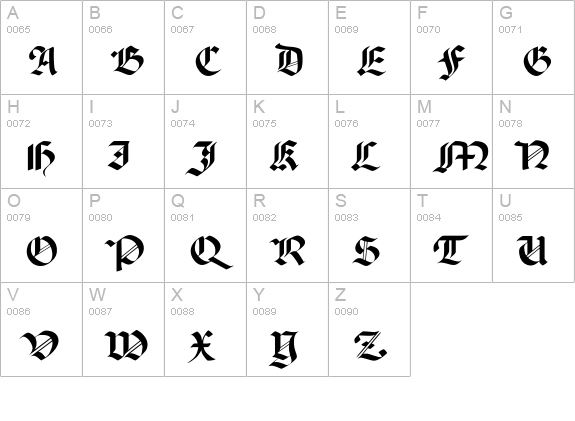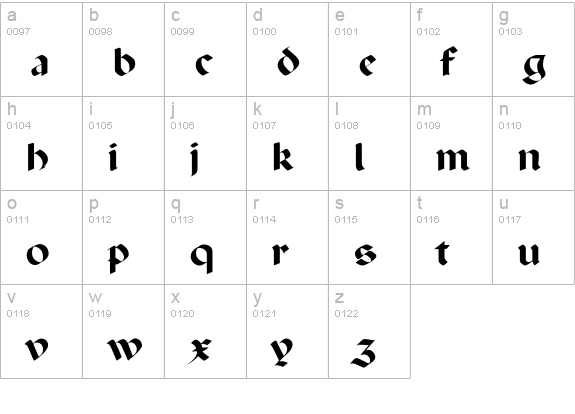
Paladin Font Details
Introducing Paladin, a captivating and versatile font that embodies strength, elegance, and a touch of medieval charm. Crafted with meticulous attention to detail, Paladin is designed to make a bold statement in any project. Its clean lines and balanced proportions create a harmonious blend of classic and contemporary aesthetics. With its carefully crafted letterforms, Paladin exudes a sense of reliability and integrity, making it the perfect choice for any professional or creative endeavor. Whether you're designing a logo, crafting a poster, or creating a stunning website, Paladin will elevate your work to new heights. But what sets Paladin apart is not just its exceptional design, but also its accessibility. We believe that great design should be available to all, which is why Paladin is freely available to download at FontsMarket.com. Now, you can unleash your creativity without any barriers, and elevate your projects with this remarkable font. Paladin offers a wide range of weights and styles, allowing you to experiment and find the perfect fit for your needs. From the delicate finesse of its light weight to the bold impact of its bold weight, Paladin offers endless possibilities for your typography. So, whether you're a seasoned designer looking to add a touch of sophistication to your work, or an aspiring creative eager to make a lasting impression, Paladin is here to empower you. Download it for free at FontsMarket.com and embark on a transformative design journey with this remarkable font. Elevate your creations, captivate your audience, and let Paladin be your guiding light.